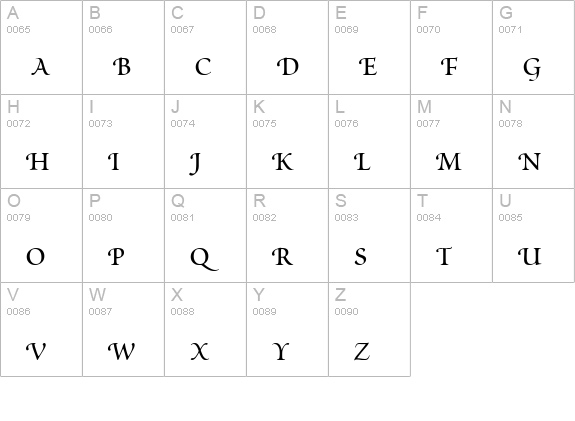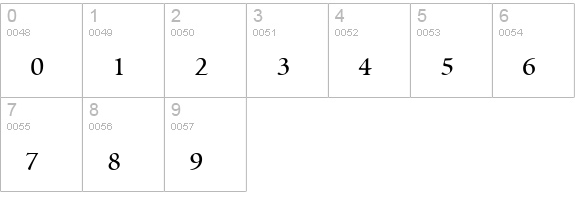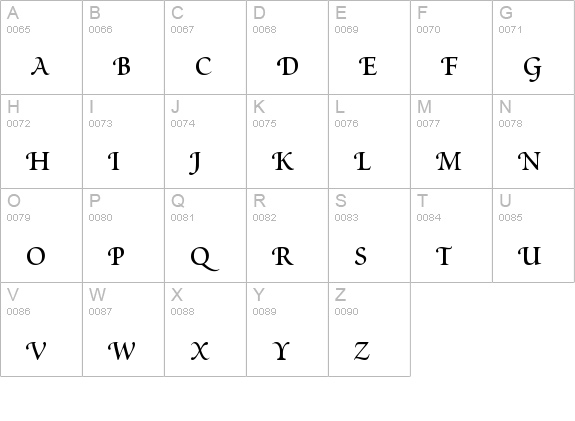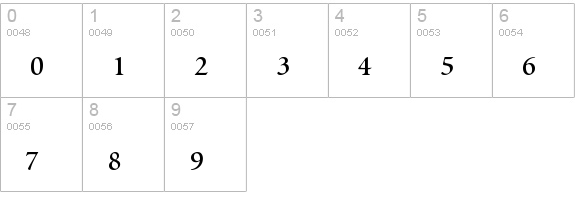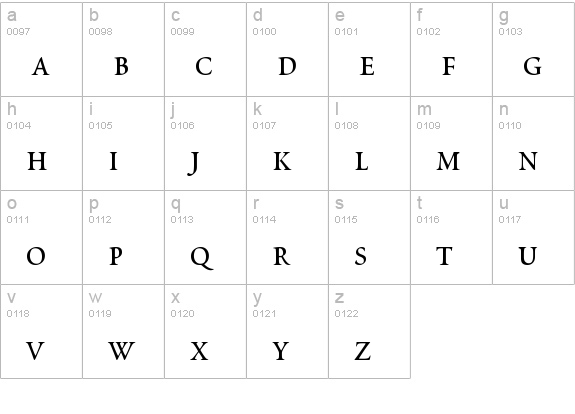
Scriptoria Small Caps SSi Font Details
Scriptoria Small Caps SSi is a captivating and sophisticated font that exudes elegance and refinement. With its timeless appeal and meticulous attention to detail, this font is perfect for adding a touch of class to any design project. The delicate strokes and carefully crafted small caps create a harmonious balance between tradition and modernity, making Scriptoria Small Caps SSi a versatile choice for both classical and contemporary designs. Its clean and crisp lines ensure legibility at any size, making it suitable for both large headlines and smaller body text. This font's versatility is further enhanced by its extensive character set, which includes a wide range of punctuation marks, numerals, and special characters. Whether you're designing a wedding invitation, a book cover, or a logo, Scriptoria Small Caps SSi has all the elements you need to bring your vision to life. And the best part? Scriptoria Small Caps SSi is freely available to download at FontsMarket.com. This means that you can access this stunning font at no cost, making it an excellent choice for designers on a budget or anyone who appreciates quality without breaking the bank. Don't miss out on the opportunity to elevate your designs with Scriptoria Small Caps SSi. Download it now from FontsMarket.com and discover the endless possibilities this font holds for your creative projects.